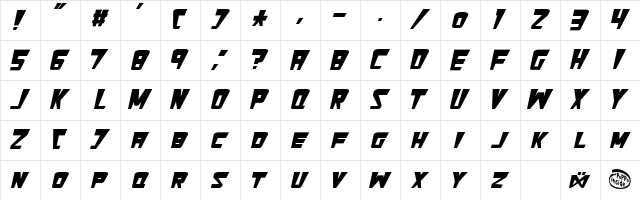
Complete Keroway2000 Italic glyph index. Displaying only characters natively supported by Keroway2000 Italic font.
Keroway2000 is a composed and adaptable typeface that performs quietly and consistently across a wide range of design contexts. The slanted form adds forward momentum and visual energy.
Pro Tip: Use Keroway2000 for emphasis, pull quotes, and subheadings where its slanted energy can add rhythm to the layout.